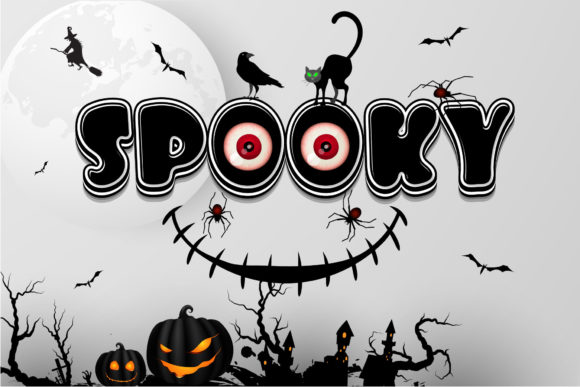
Spooky Font: The Best Font for Halloween!
Get ready to scream with our Spooky Font from the creative minds at Nobu Collections. If you're looking for a font that captures the eerie, creepy, and fun vibe of Halloween, then look no further than Spooky Font.
Spooky Font is a colorful font family designed specifically for Halloween-related projects or crafty ideas. With its fun and creepy look, Spooky Font is the perfect choice for those who want to add an extra element of spookiness to their designs. The font is incredibly versatile and can be used for a wide range of projects, including posters, invitations, banners, flyers, and more. The only limit is your imagination!
So why choose Spooky Font for your next project? First and foremost, it's the best font for Halloween. With its unique design, Spooky Font is sure to make your project stand out from the crowd. It's also keyword-rich, making it easy to find for those looking for the perfect font for their Halloween-themed designs.
But that's not all. Spooky Font is also incredibly eye-catching and captures the spirit of Halloween perfectly. It's the perfect font for those who want to evoke a sense of fun and creepiness in their designs. So if you're looking to add an extra element of spookiness to your next project, then be sure to download Spooky Font today.